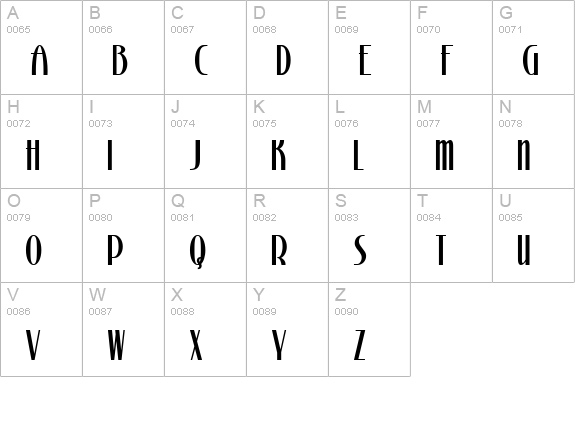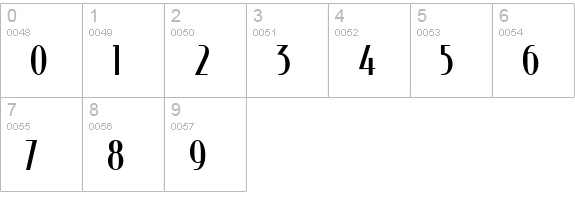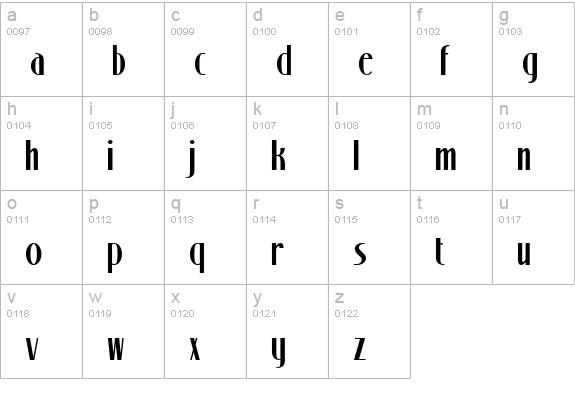
Stony Island NF Font Details
Stony Island NF is a captivating and versatile font that exudes a sense of elegance and sophistication. Its sleek lines and sharp angles give it a modern yet timeless appeal, making it perfect for a wide range of design projects. Whether you're creating a logo, branding materials, or a website, Stony Island NF will elevate your work to the next level. The best part? Stony Island NF is available for free download at FontsMarket.com. This means you can incorporate this stunning font into your projects without breaking the bank. Don't miss out on the opportunity to enhance your designs with the beauty and style of Stony Island NF. Download it today and take your creations to new heights.